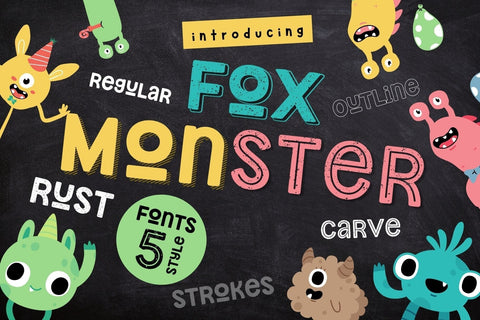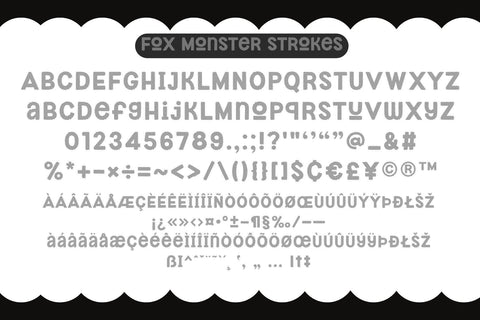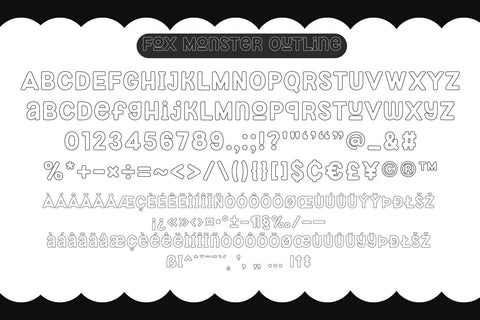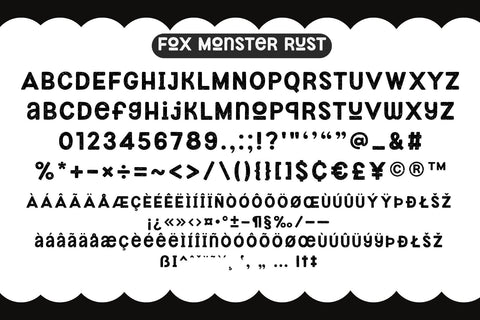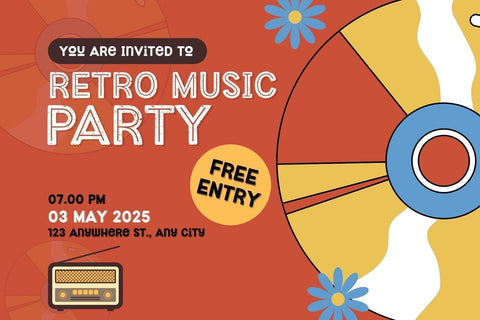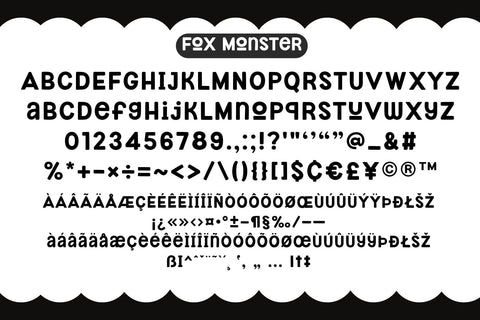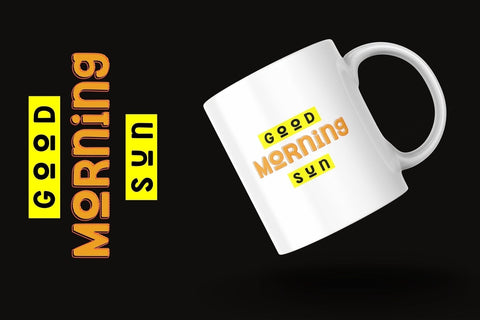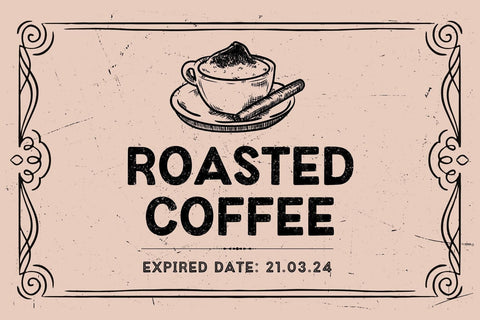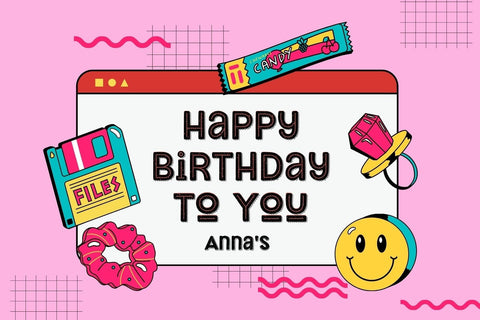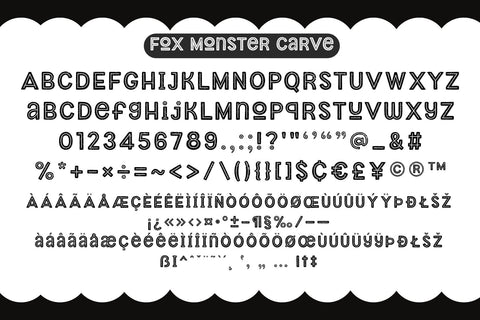
Fox Monster 5 Fonts Style
Fox Monster is a 5-style font that a cool and fun-style display font. that adds a captivating and energetic touch to your designs. Perfect for use in publications, menus, logos, business cards, or even printed on t-shirts, these fonts exude uniqueness. Its main feature is its vibrant and expressive design, allowing you to create attention-grabbing headlines, t-shirt typography, banners, product labels, and more